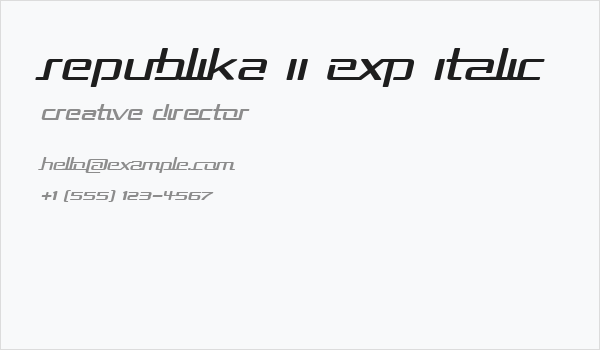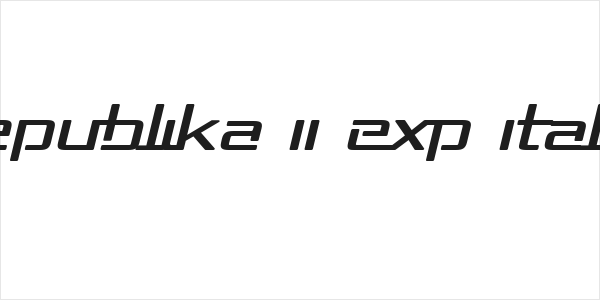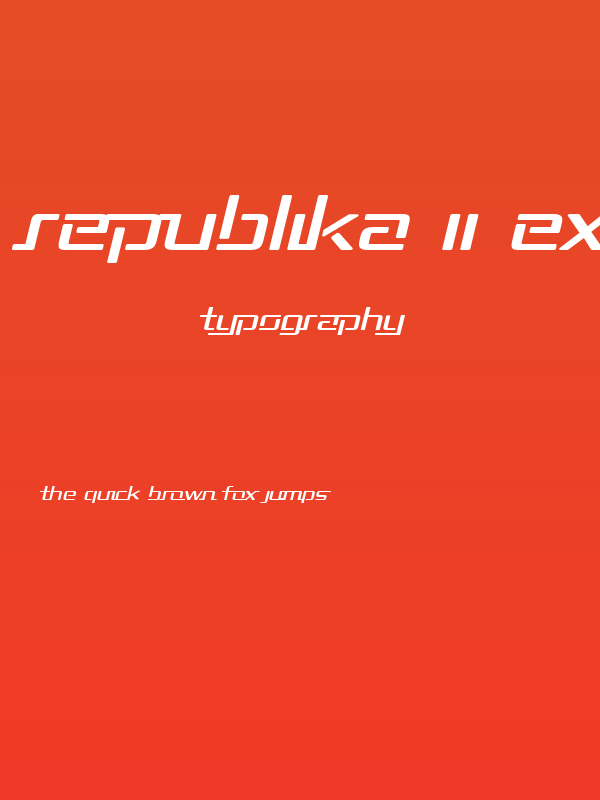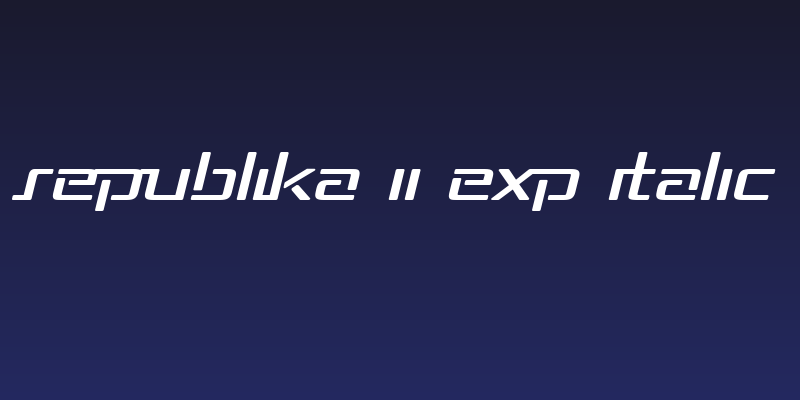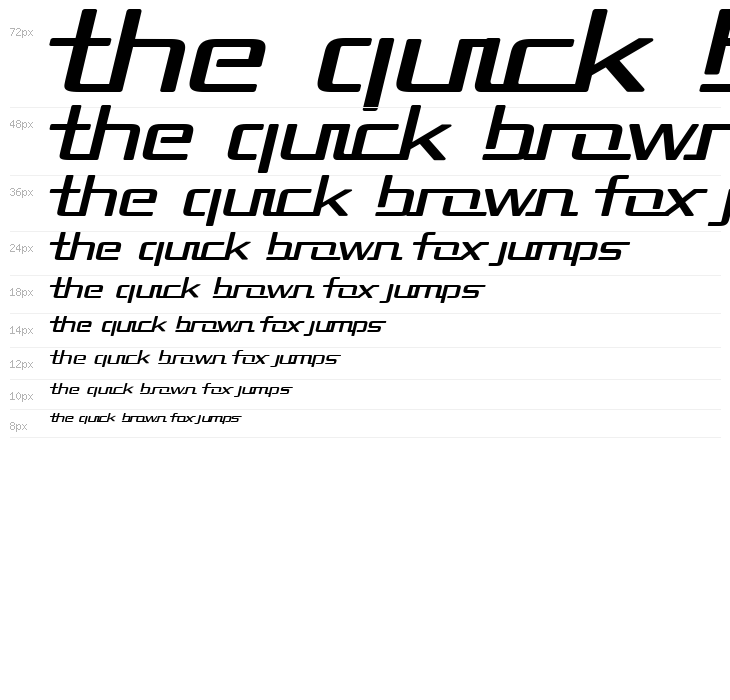
Republika II Exp Italic Font
Republika II Exp Italic Description
This font features a futuristic and sleek design with a distinct italic slant, giving it a dynamic and forward-moving appearance. The characters are constructed with a geometric precision, incorporating sharp angles and clean lines that contribute to a modern aesthetic. The uppercase and lowercase letters maintain a consistent style, with a uniform height that enhances readability. The numerals are equally stylized, matching the angular theme of the alphabet. Special characters are designed to complement the overall look, ensuring a cohesive appearance across all text elements. This font's expanded width allows for a spacious and airy feel, making it suitable for various design applications.
WidthExpanded
Overall StyleFuturistic
Use CaseHeadlines, Logos, Display text
Proposed ProjectsIdeal for technology branding, sci-fi posters, modern web design, and innovative product packaging.